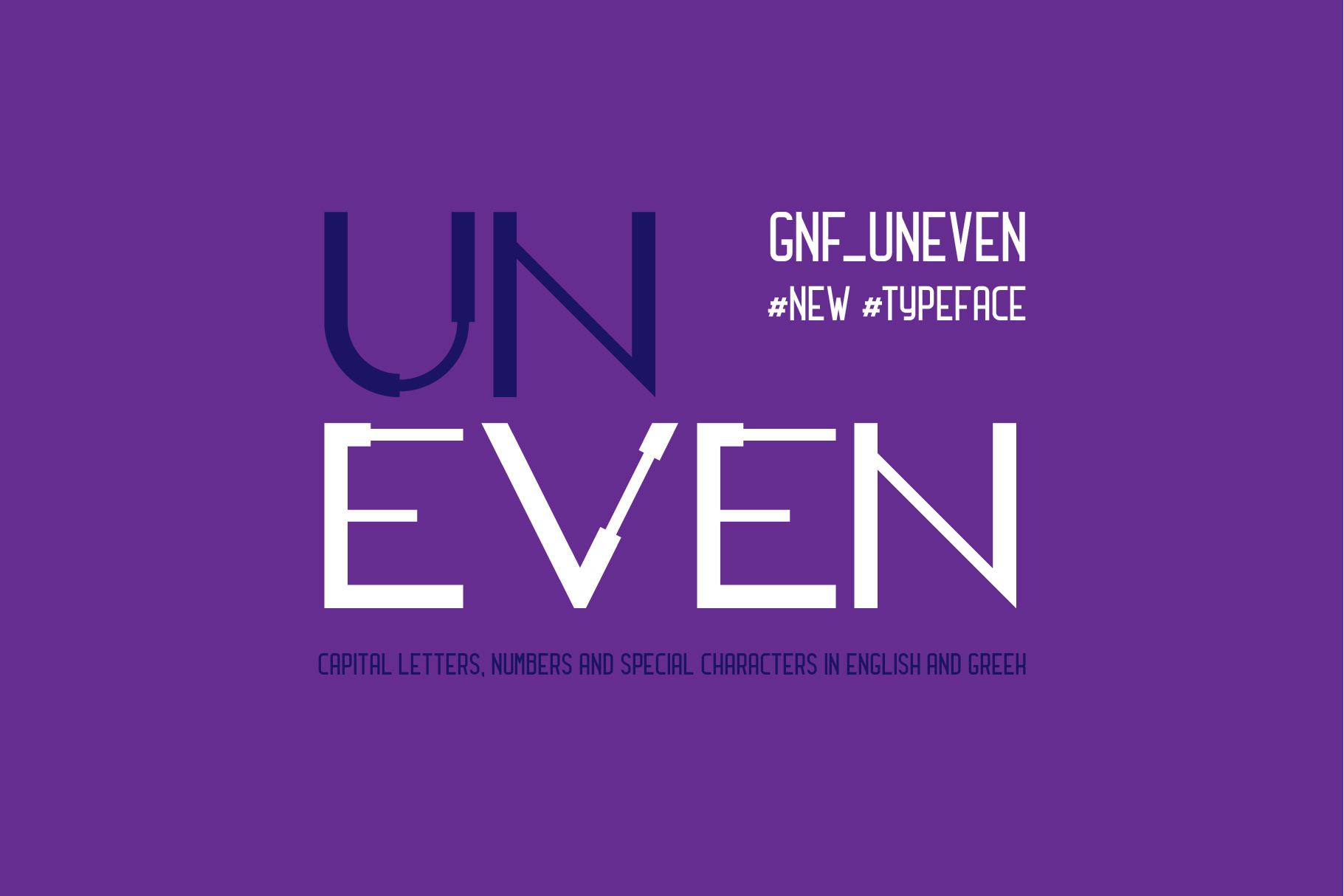
GNF UNEVEN DISPLAY sans serif font
Uneven is a new typeface designed with capital letters,numbers and special characters, supporting Greek and English languages.